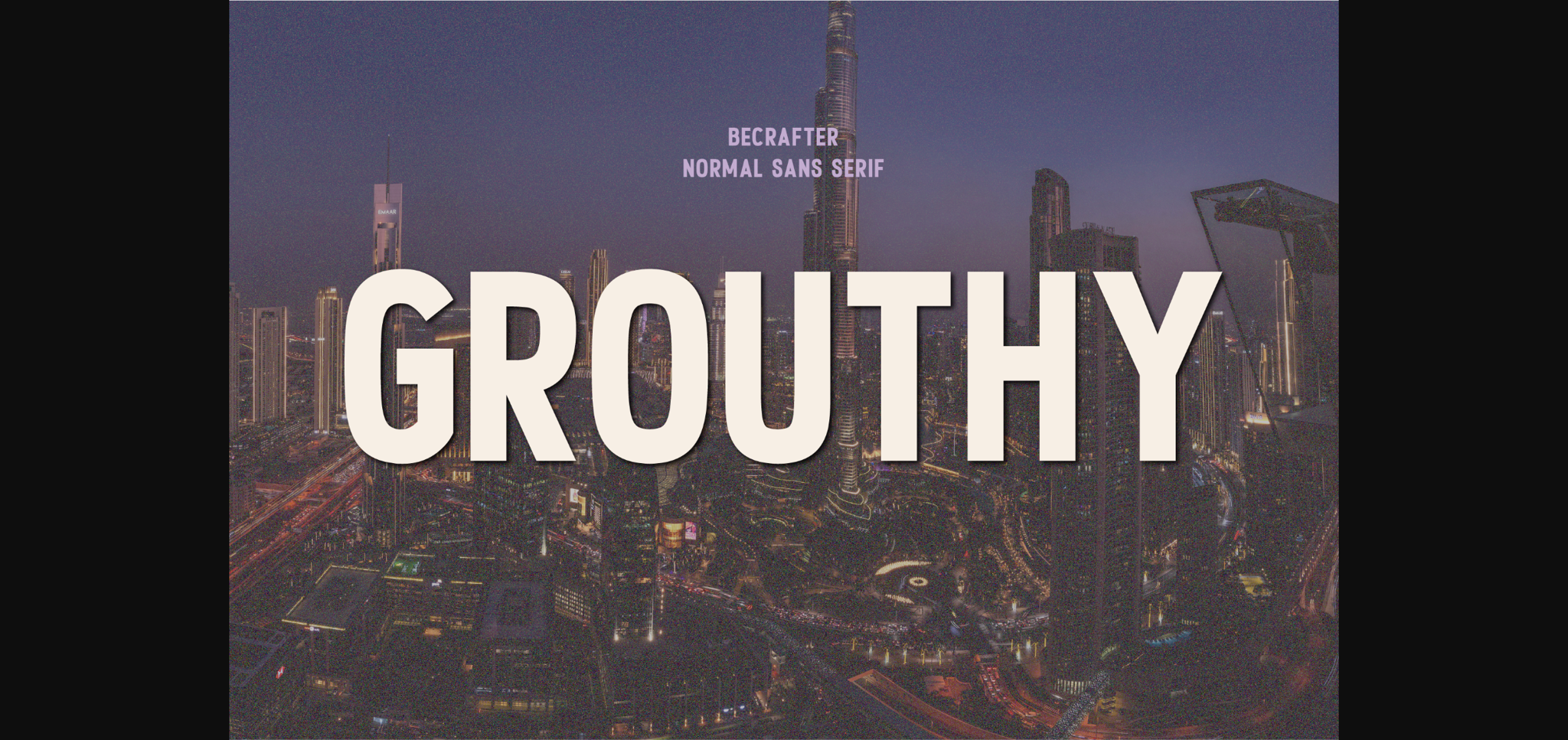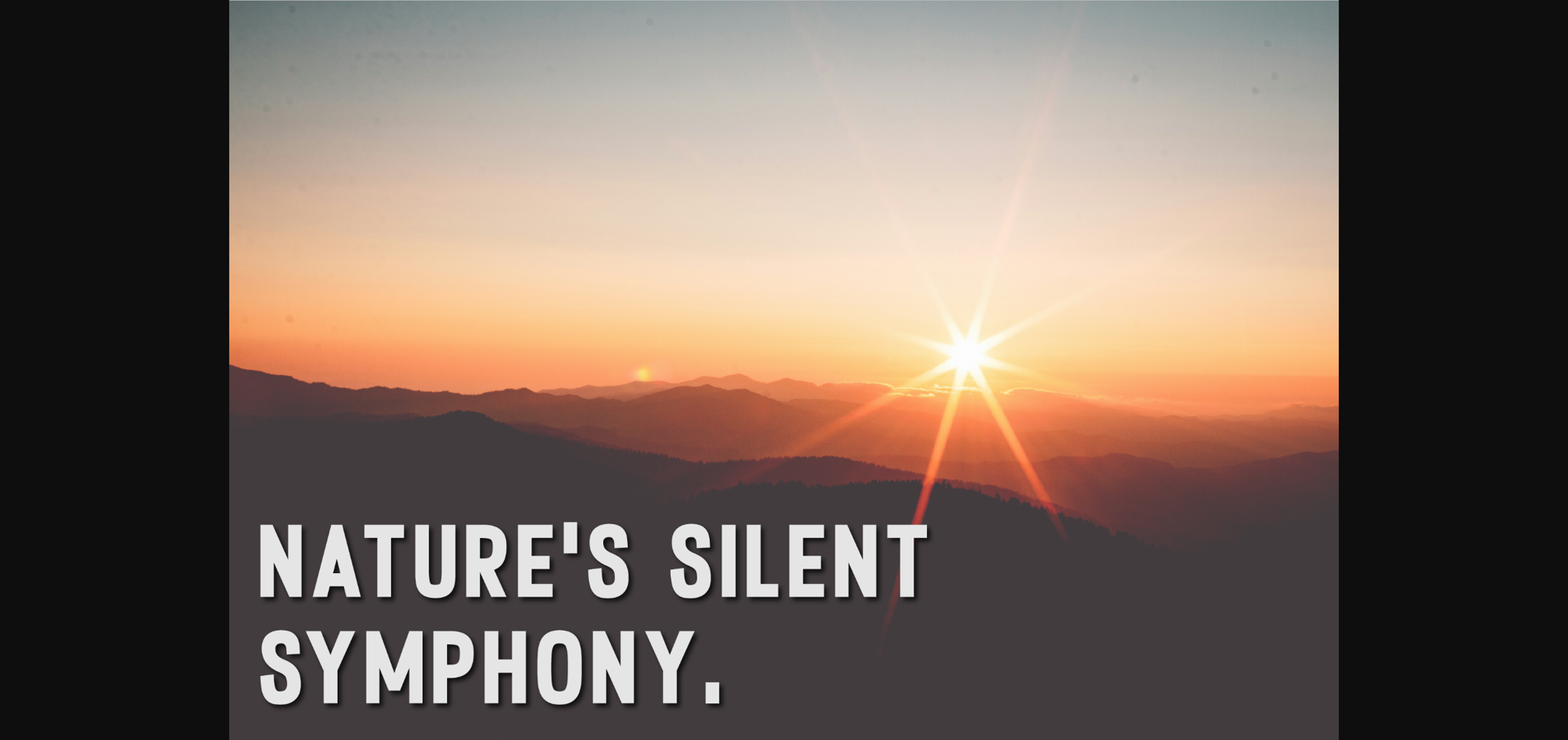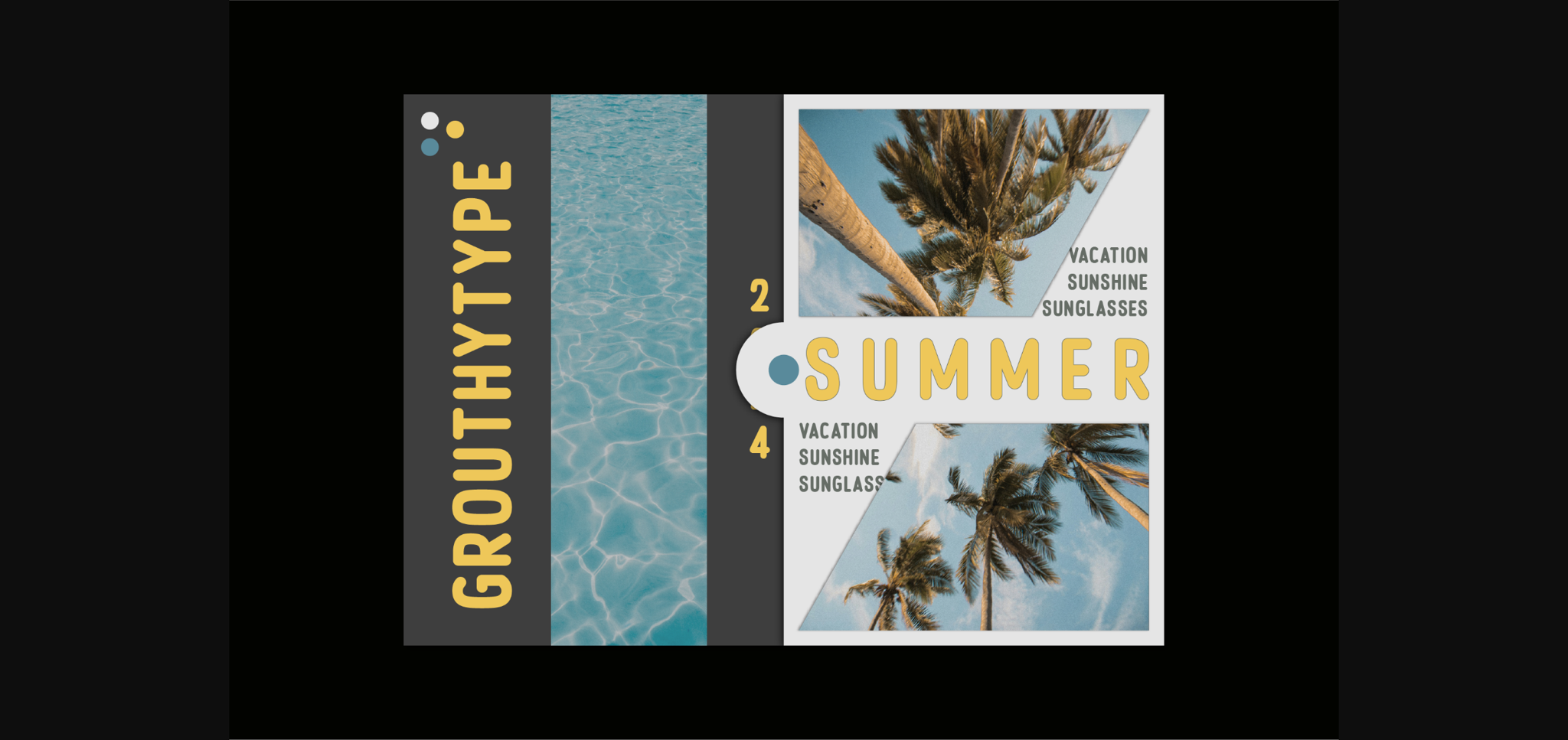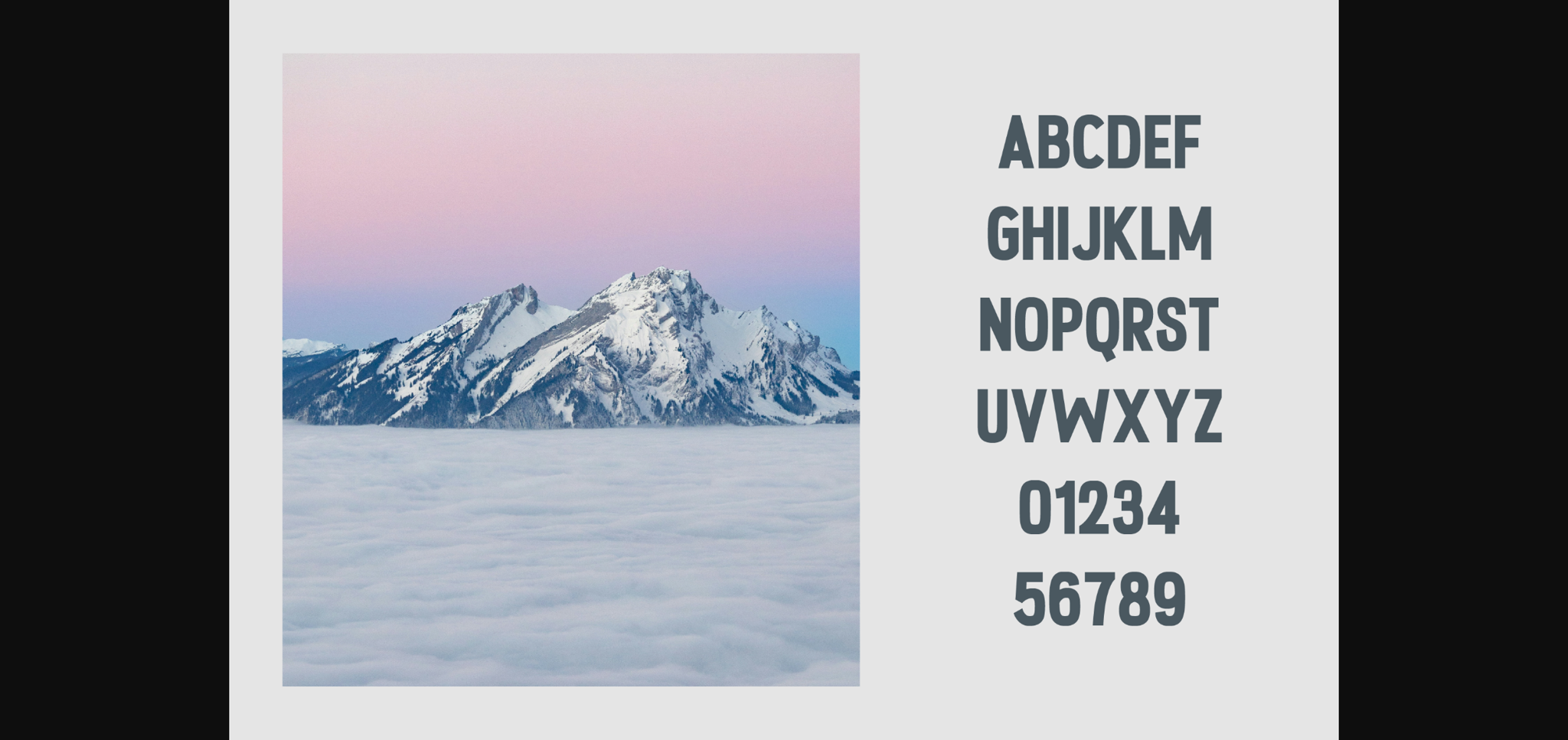
About Grouthy Font
Introducing Grouthy, a vigorous and mesmeric type font that commands attention. Its striking uppercase vintage sans serif characteristics foster a captivating blend of old-world charm and modern innovations. Boasting versatility that illuminates any context, Grouthy is ideal for crafting stunning visuals. Whether it’s designing impeccable logos or sparking inspiration for printed materials, Grouthy’s versatility shines. To broaden your horizons and enhance your creations, Grouthy notably incorporates uppercase formatting, comprehensible numbers, and precision punctuation.